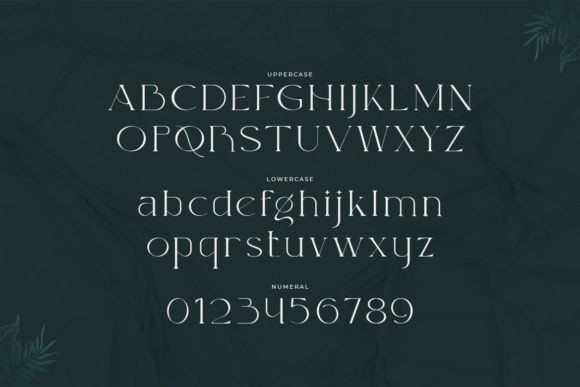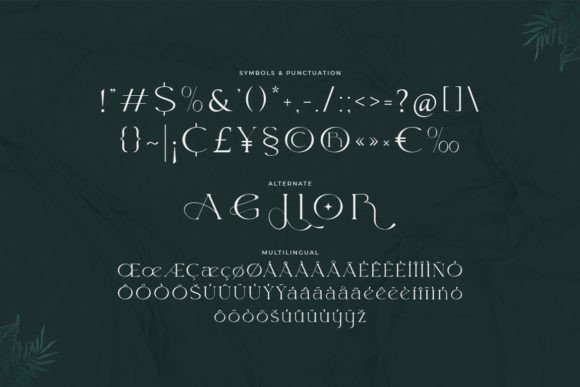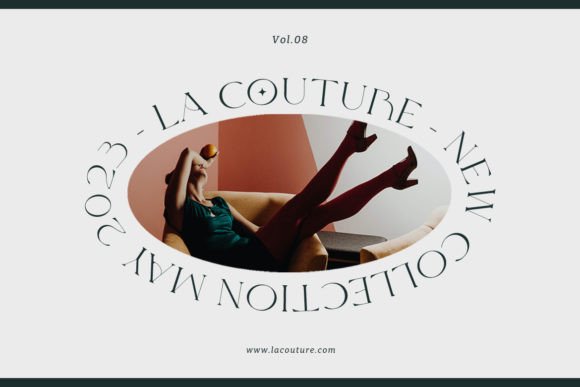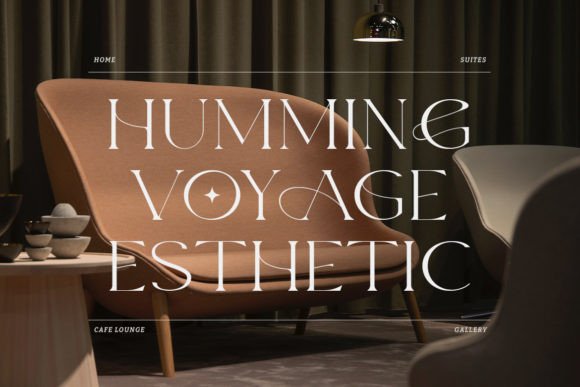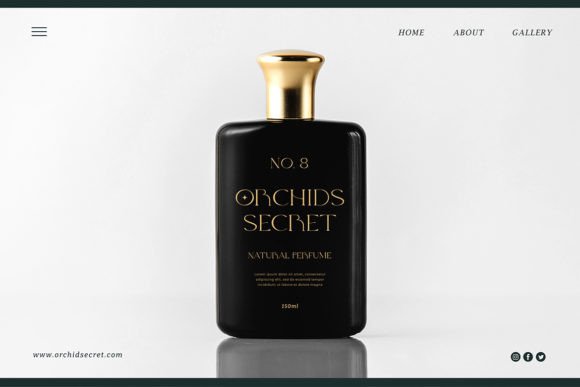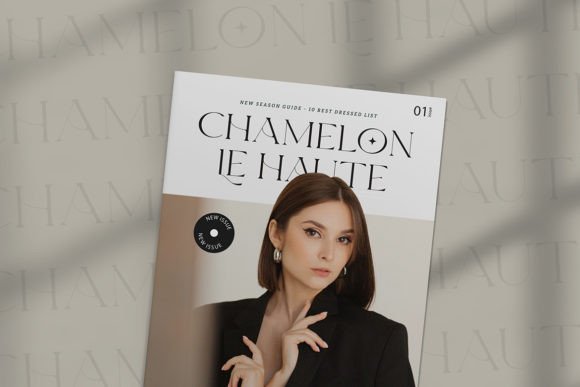
Introduction to Giove Font
Have you ever found yourself stuck in front of your computer, staring at a blank canvas, trying to bring your creative vision to life? The blank page can be intimidating, but the right design resource can make all the difference. For designers looking to add a touch of sophistication to their next project, we have just the thing.
Meet the Giove Font, a modern and stylish display font that exudes elegance and refinement. Its sleek lines and precise typography make it the perfect choice for designers who want to create high-quality designs that stand out from the crowd.
Key Features of Giove Font
- High-quality, elegant design suitable for creative projects and design resources.
- Features a transparent background, allowing for flexibility in design applications.
- Designed to be highly legible, with clear and crisp lettering suitable for a wide range of creative projects.
- Available in multiple font sizes and resolutions, ensuring versatility for various design needs.
- Unique, modern aesthetic that can add a touch of sophistication to any design, making it an ideal design resource for creative projects.
Honest Review: Giove Font
I recently stumbled upon the Giove Font, and I must say it’s a solid addition to my design resource library. As a designer, I’m always on the lookout for high-quality fonts that can elevate my creative projects.
One of the things that works well with the Giove Font is its clean and modern design. The font is perfect for creating a sleek and professional look in your designs. The transparent background is also a great feature, allowing you to easily place the text over any image or background.
- ✨ Transparent background for easy text placement
- ⚠️ Limited font styles and variations
- ⚠️ Not ideal for projects that require a lot of font customization
Overall, I’m impressed with the Giove Font and would recommend it to designers looking for a high-quality, modern font for their creative projects. With its clean design and free download, it’s definitely a valuable resource to have in your design library.
How to Use Giove Font
The Giove Font is a versatile and high-quality design resource perfect for any creative project. With its unique style and transparent background, it can elevate your designs to the next level.
Tips for Getting the Most Out of the Giove Font
To get the most out of the Giove Font, experiment with different font sizes, colors, and styles. You can also combine the Giove Font with other design elements to create a unique and eye-catching design.
Common Use Cases for the Giove Font
The Giove Font is perfect for a variety of creative projects, including logos, business cards, posters, and social media graphics. Its high-quality design and transparent background make it an excellent choice for any design project.